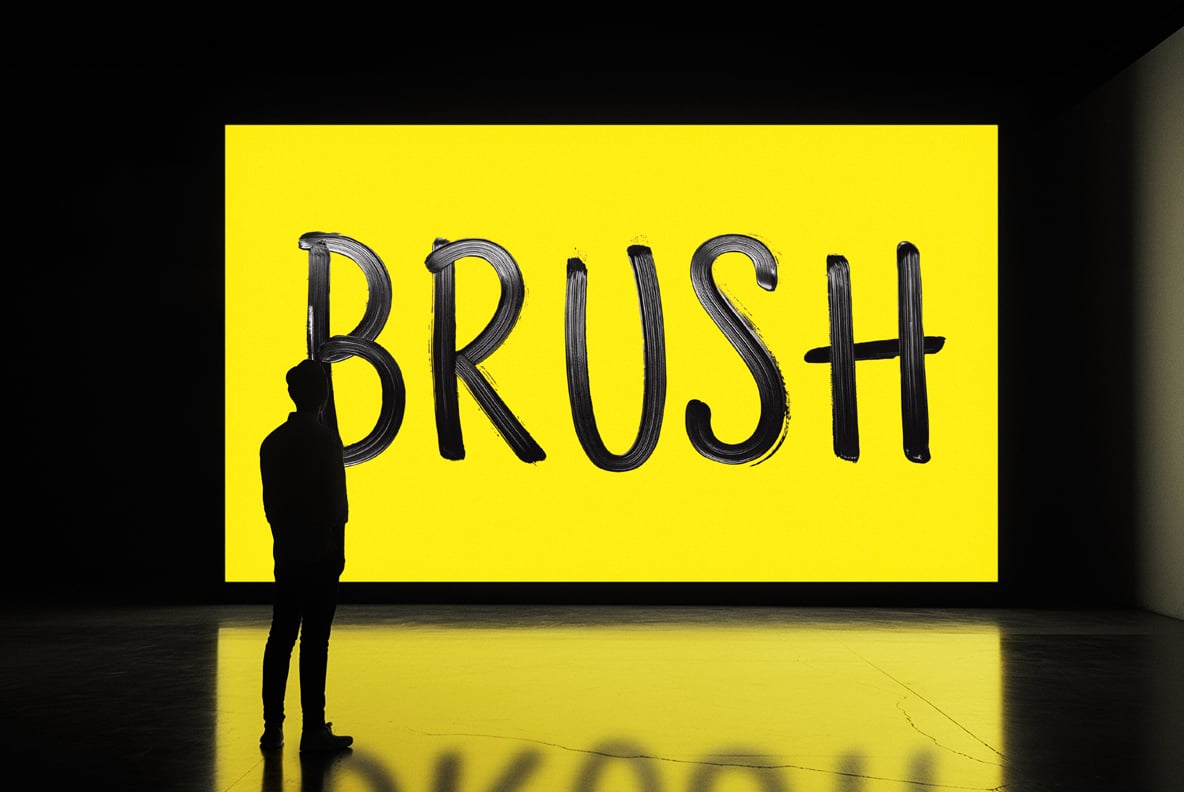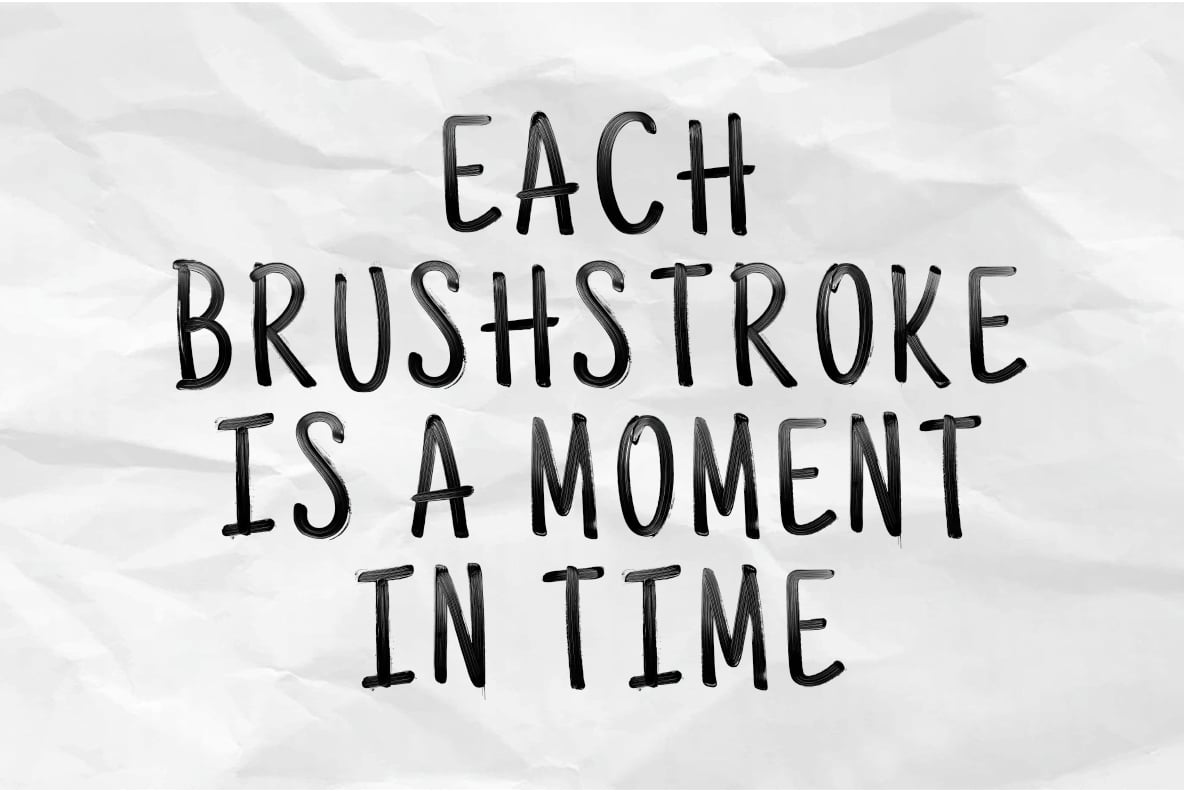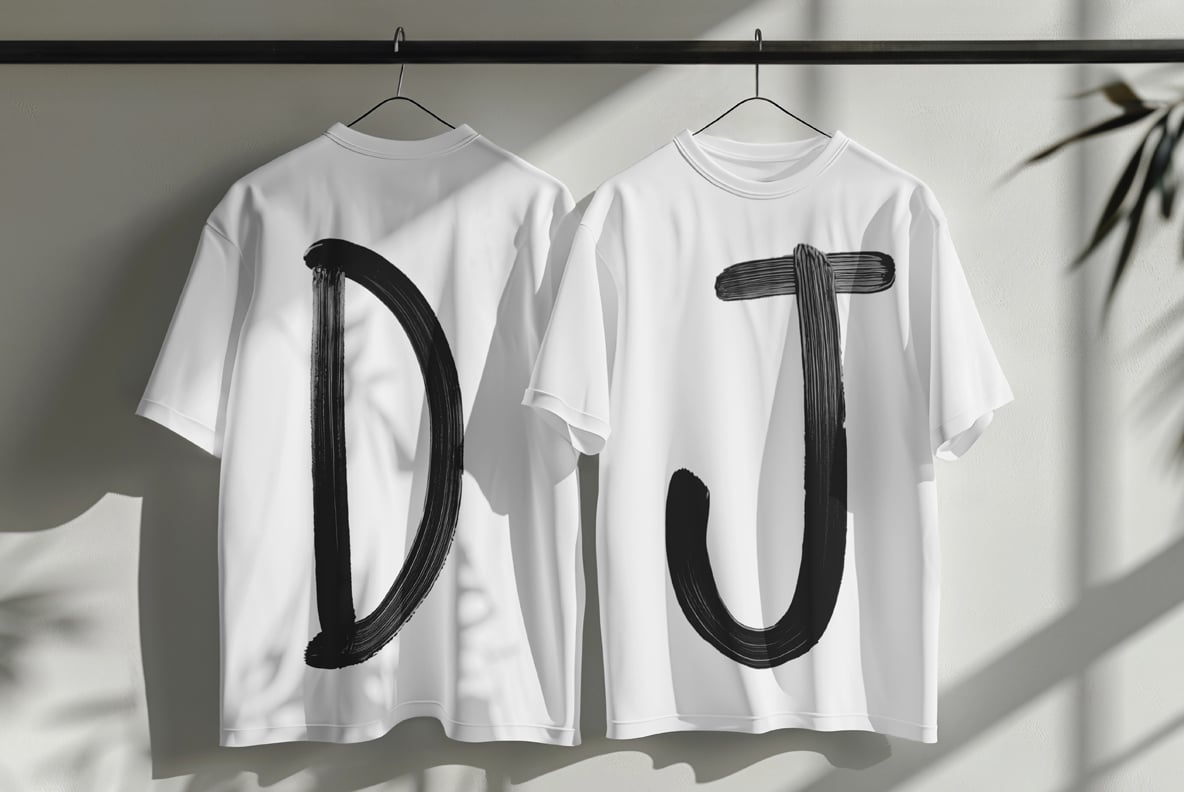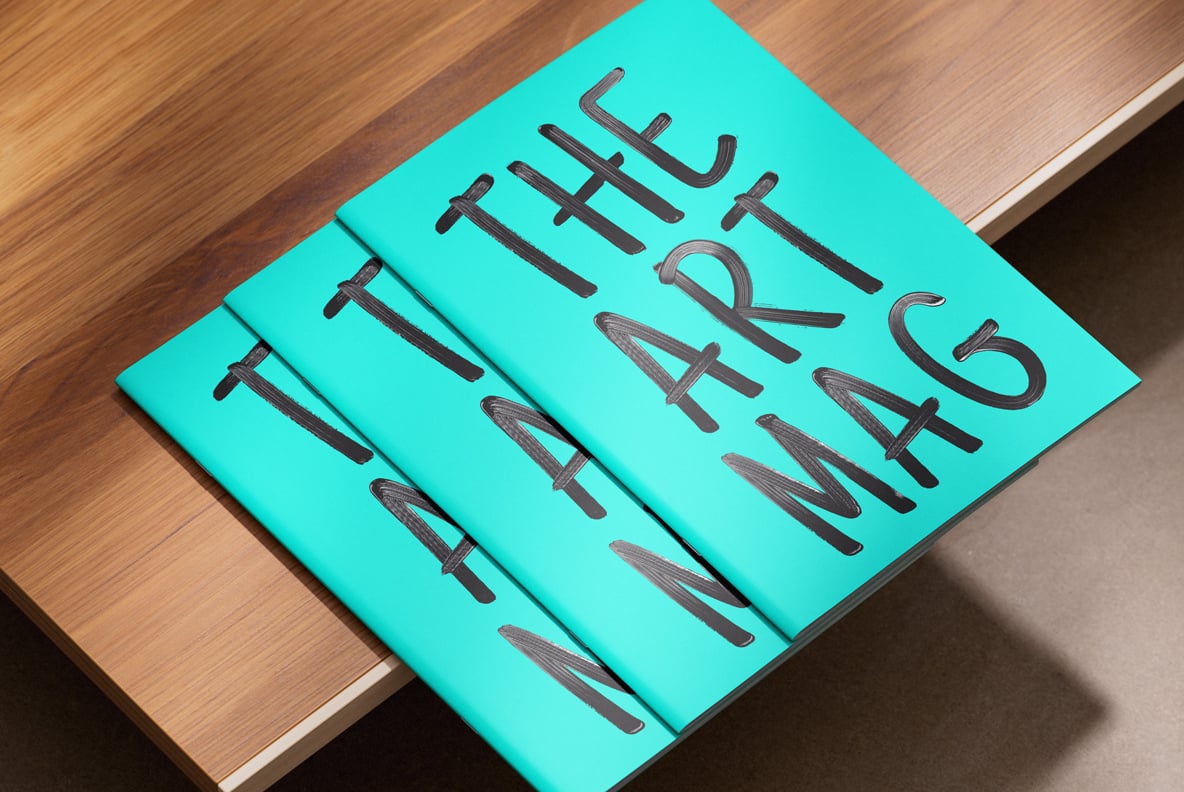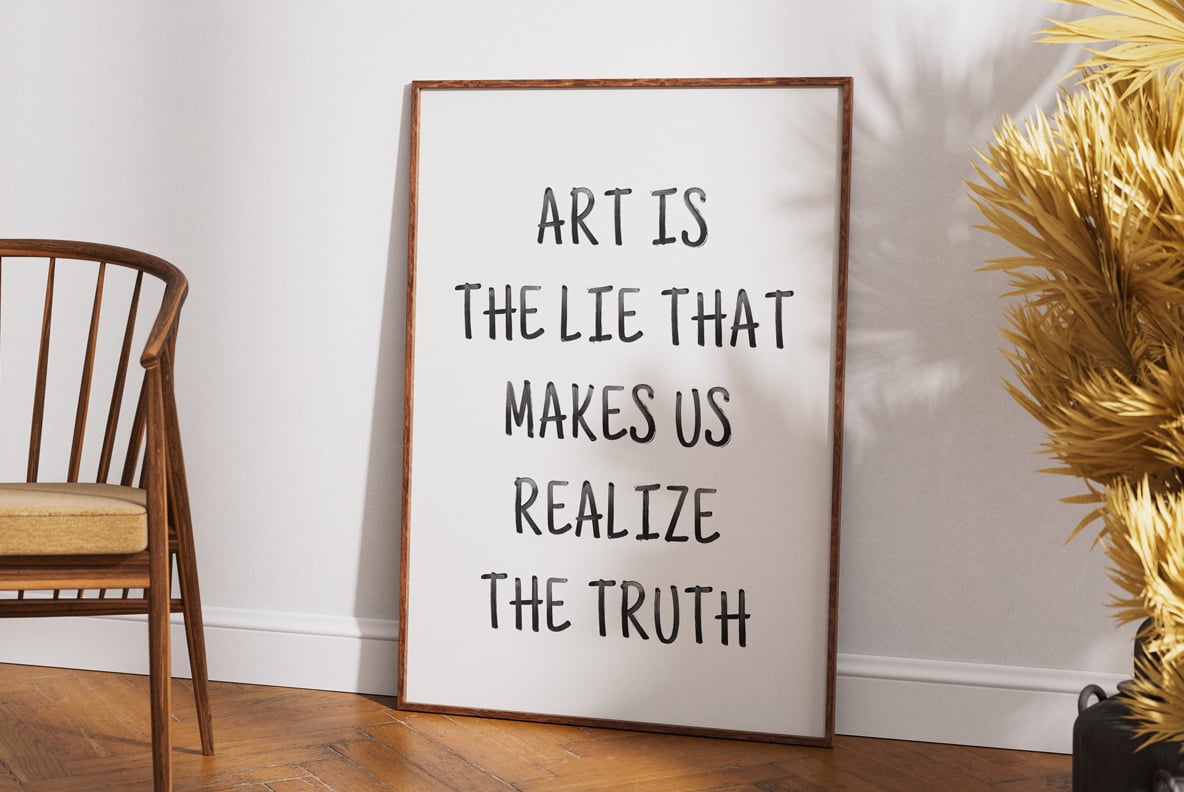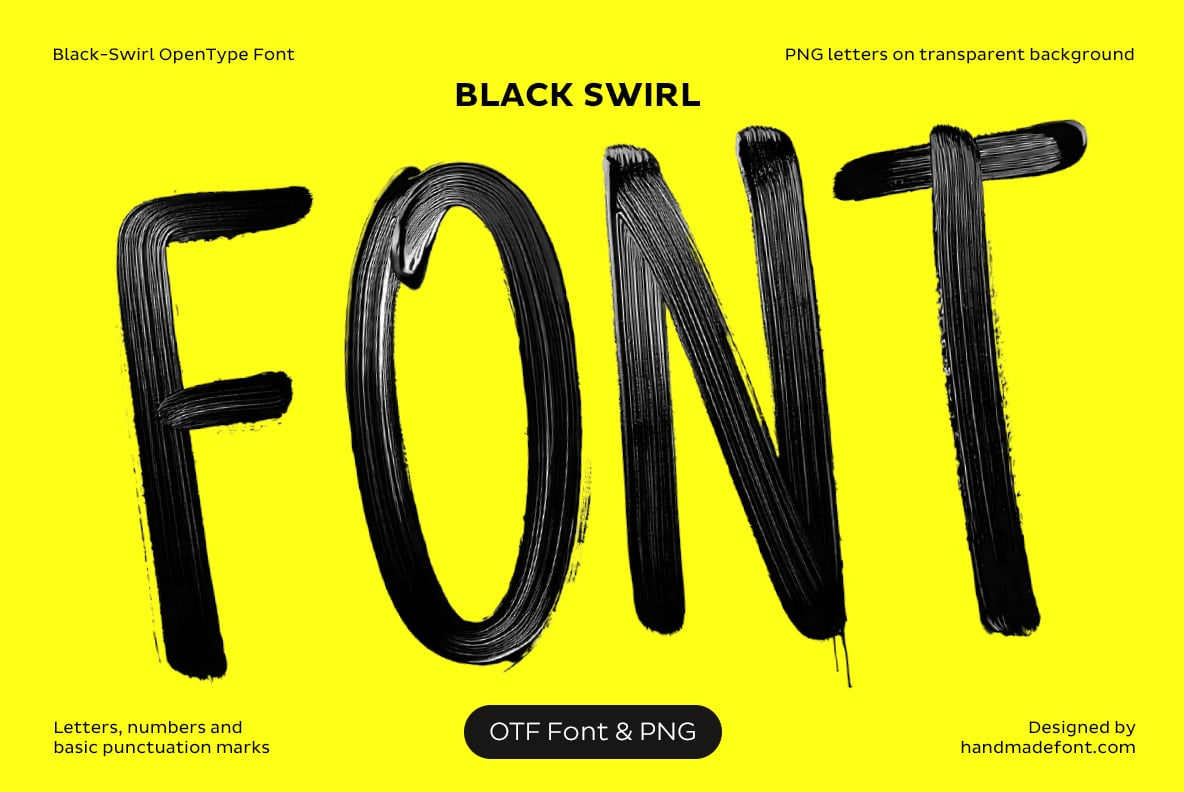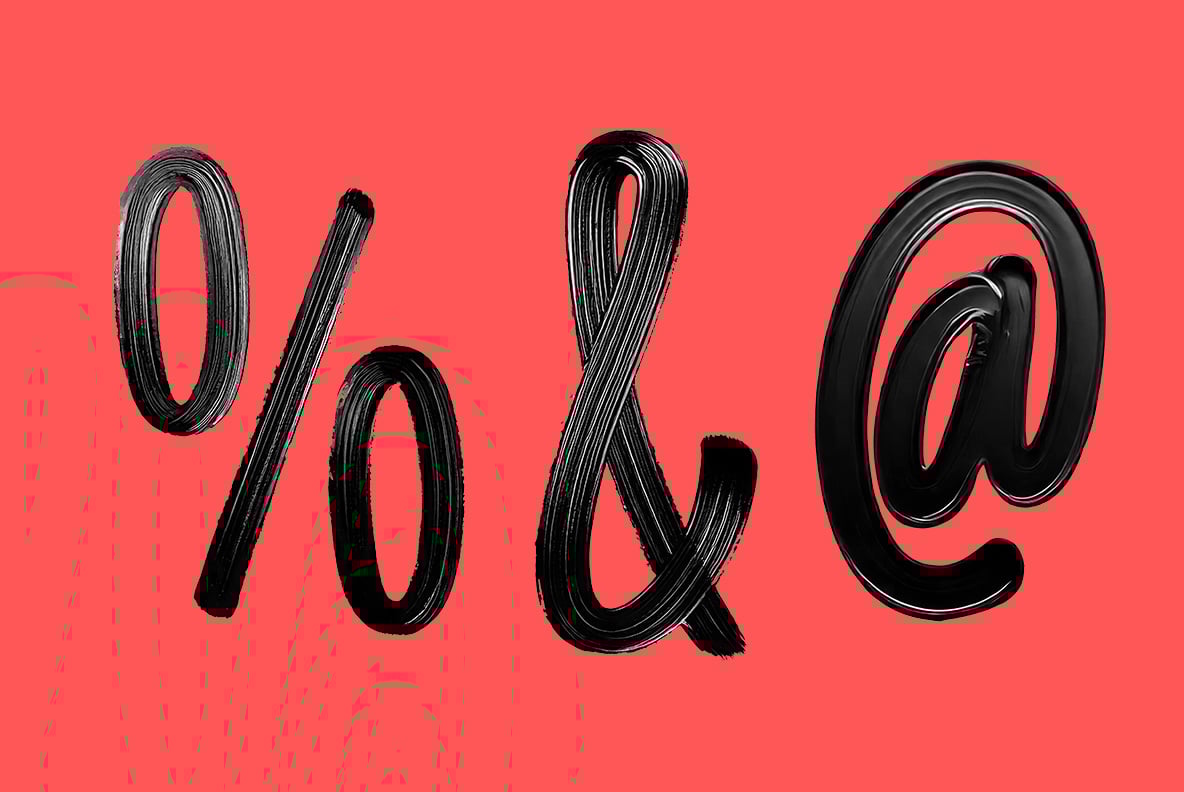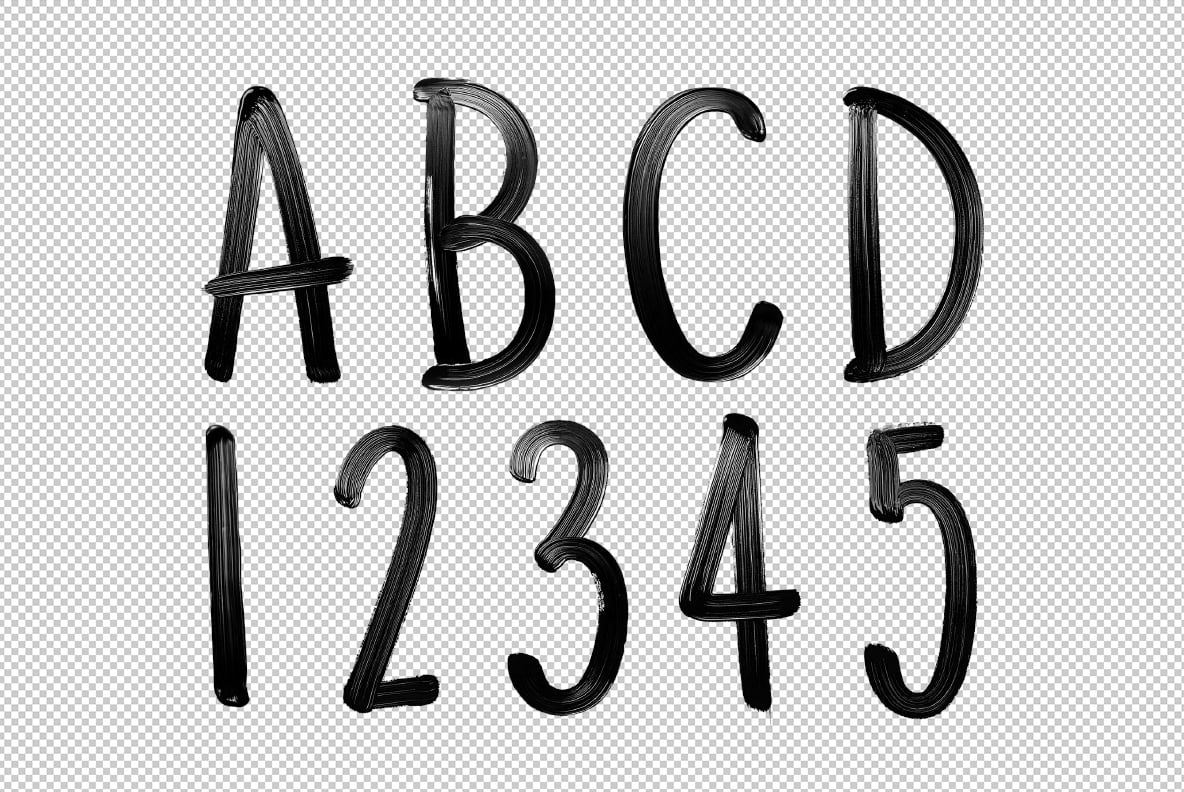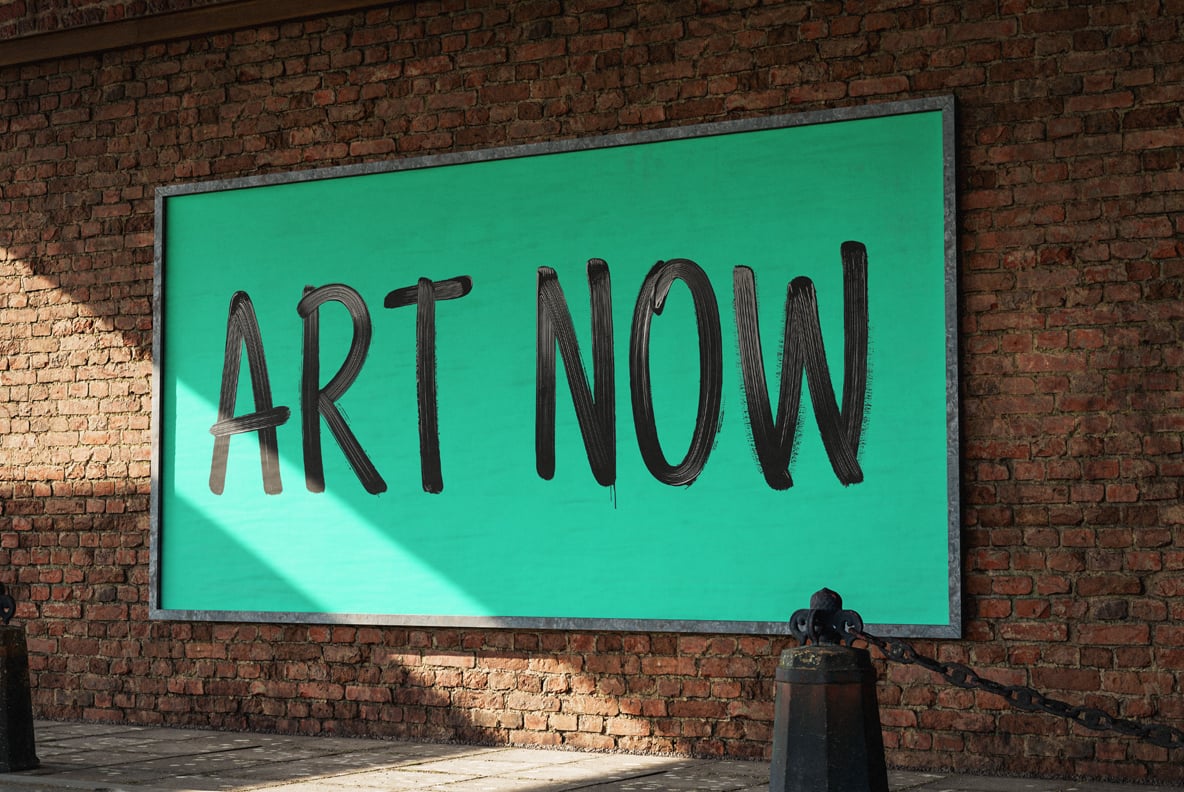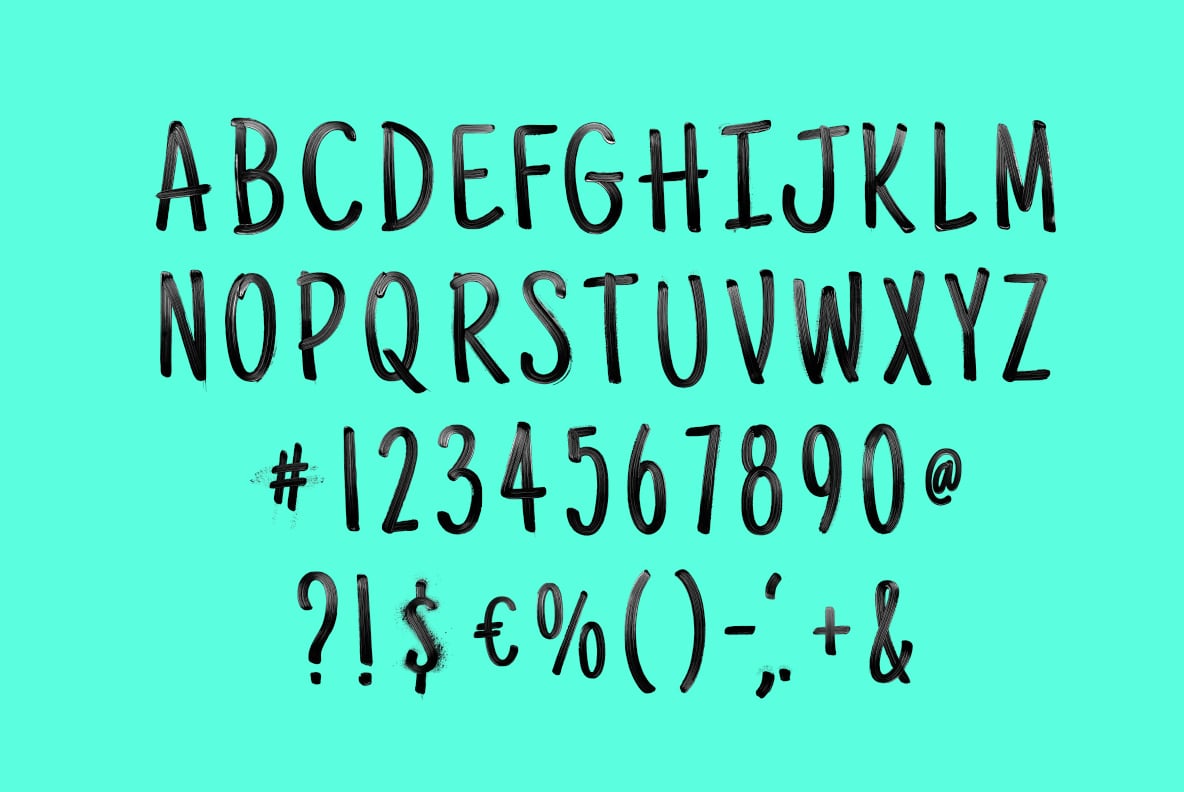
Black Swirl Font
Black Swirl Font isn’t just a font – it’s a bold statement, a chaotic dance of inky strokes that scream look at me! With every brush-marked letter, it exudes the energy of a rebellious artist who’s had way too much espresso. It’s messy. It’s edgy. It’s the font equivalent of a punk rock concert in a fine art gallery. Perfect for projects that demand boldness, personality, and just a touch of mischief. Warning: Black Swirl will not behave. It refuses to sit quietly in the corner. It’s here to make a scene – and it’s loving every second of it.
A high definition OpenType Font. Contains uppercase characters, numerals and basic punctuation. (Draw height roughly 800 pixels). All letters and glyphs that comprises this font you can see on the preview.